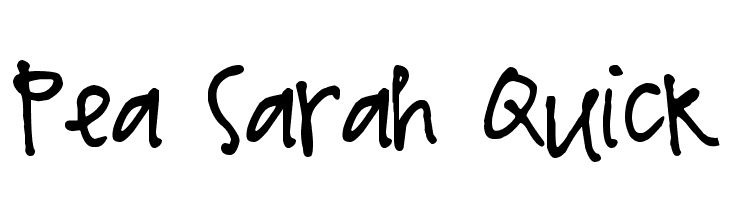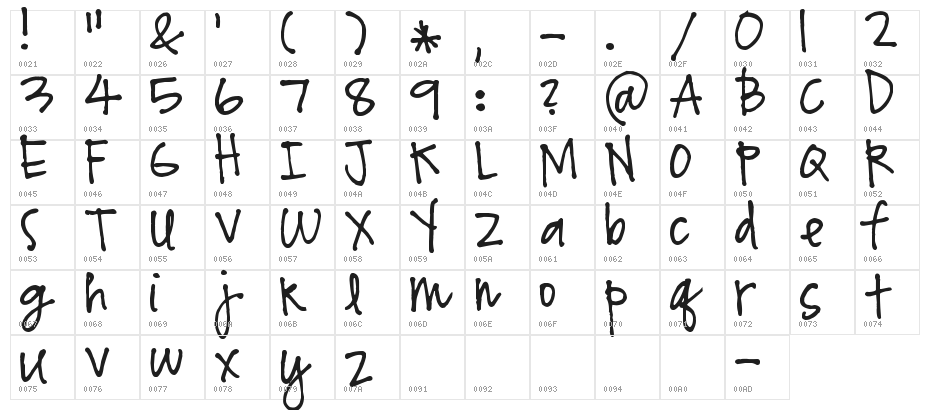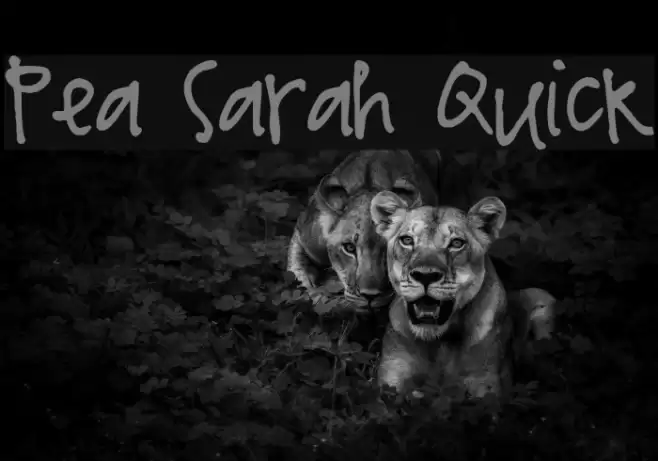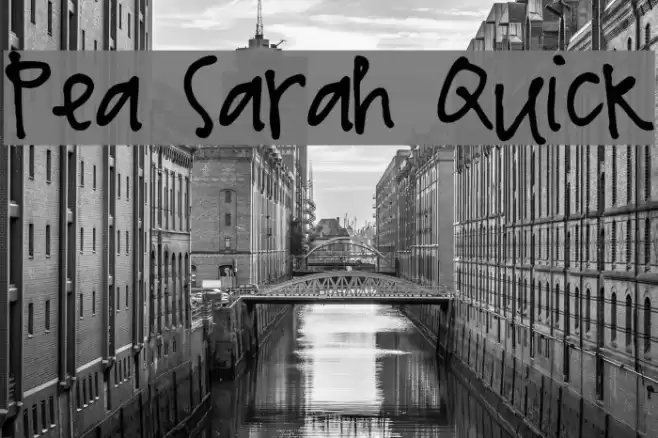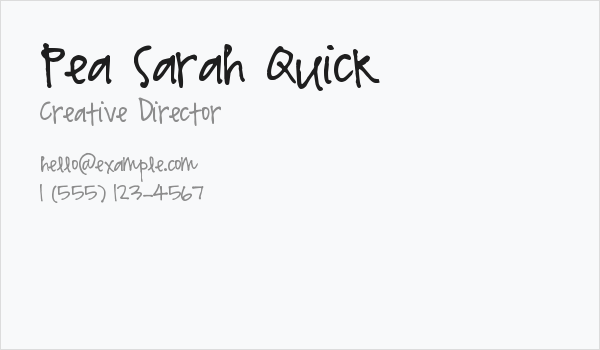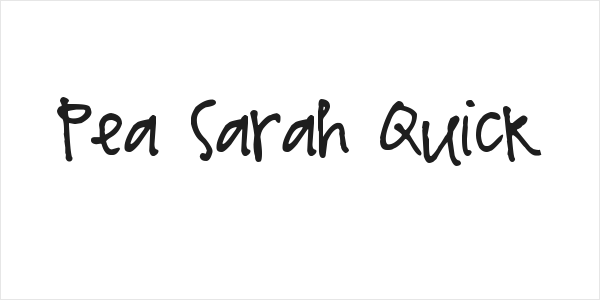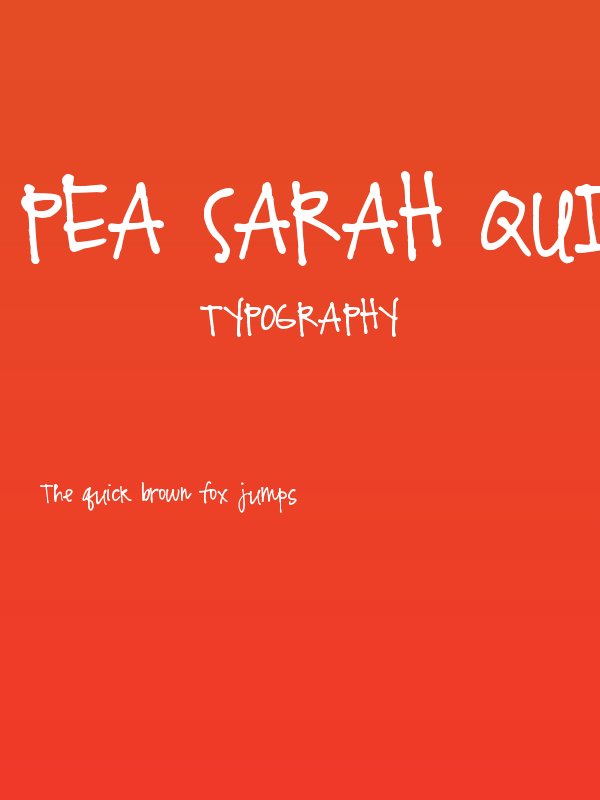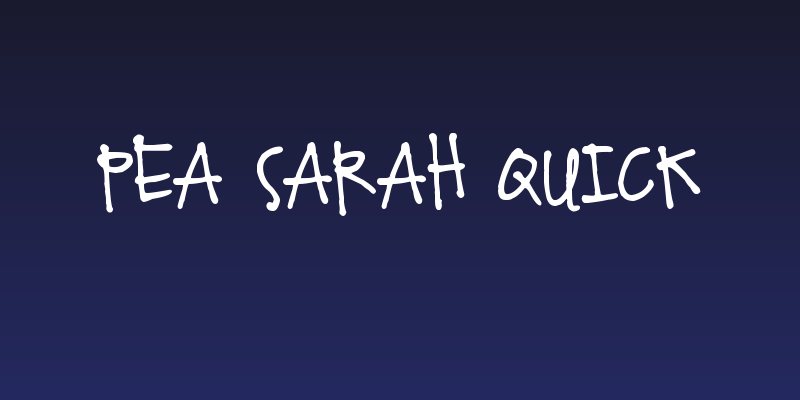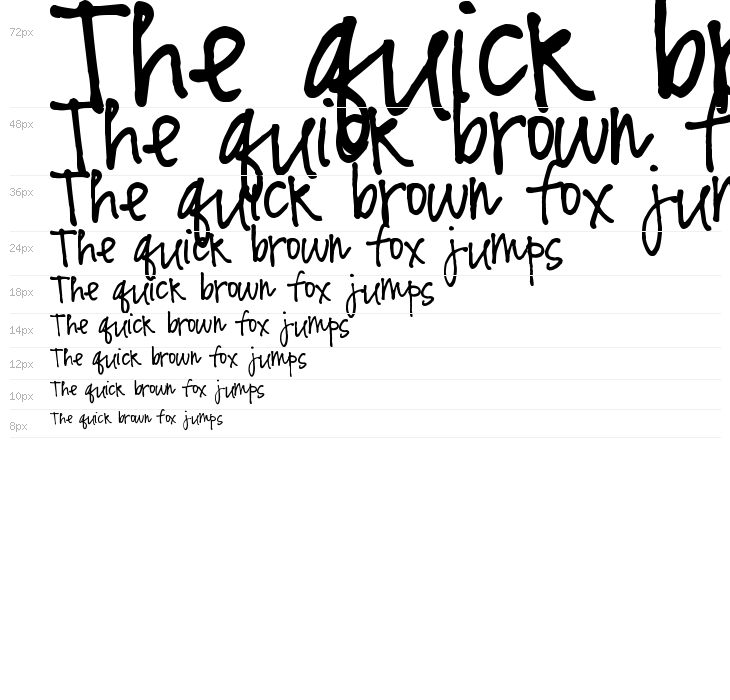
Pea Sarah Quick Font
Pea Sarah Quick Description
This font exudes a playful and casual handwritten style, characterized by its loose, free-flowing strokes and slightly uneven baseline. The letters have a personal touch, reminiscent of quick, informal notes or doodles. The uppercase letters are bold and prominent, while the lowercase letters maintain a consistent flow, adding to the font's approachable and friendly appearance. Numbers and special characters are crafted with the same whimsical flair, ensuring a cohesive look across all text elements. This font is perfect for projects that require a personal, human touch, such as greeting cards, invitations, or creative branding.